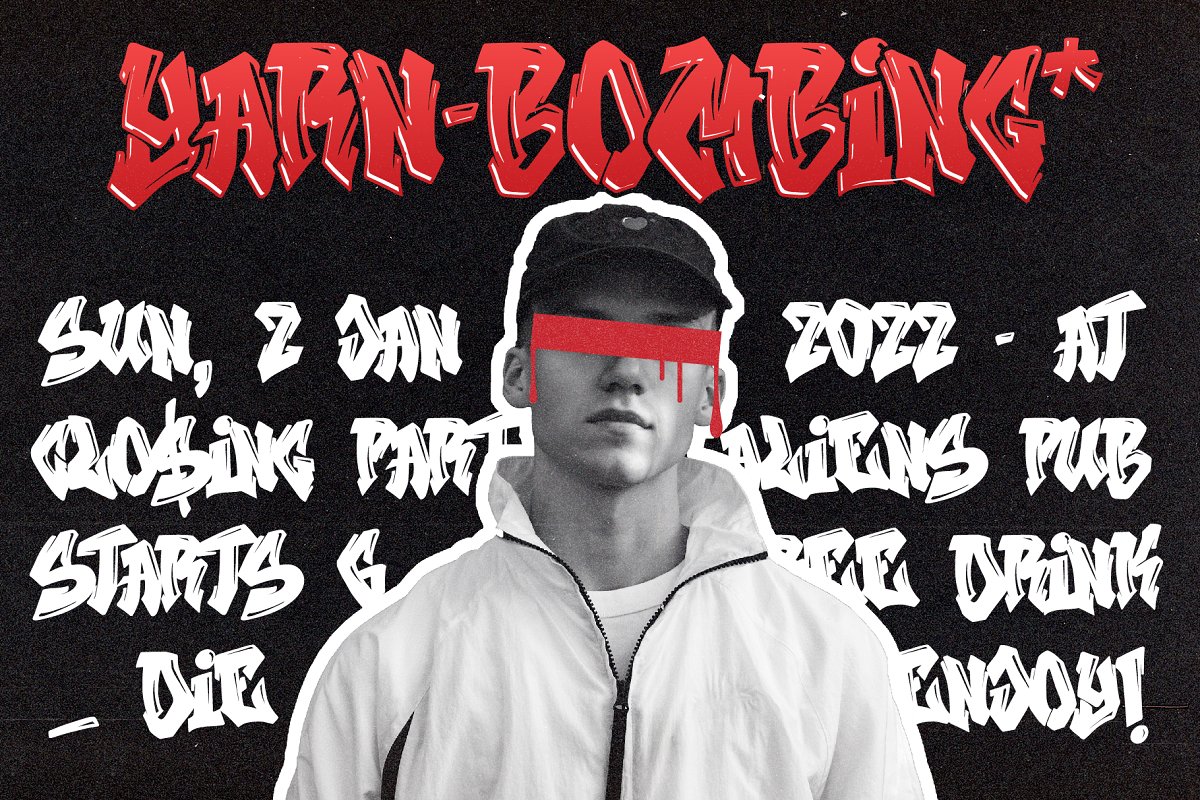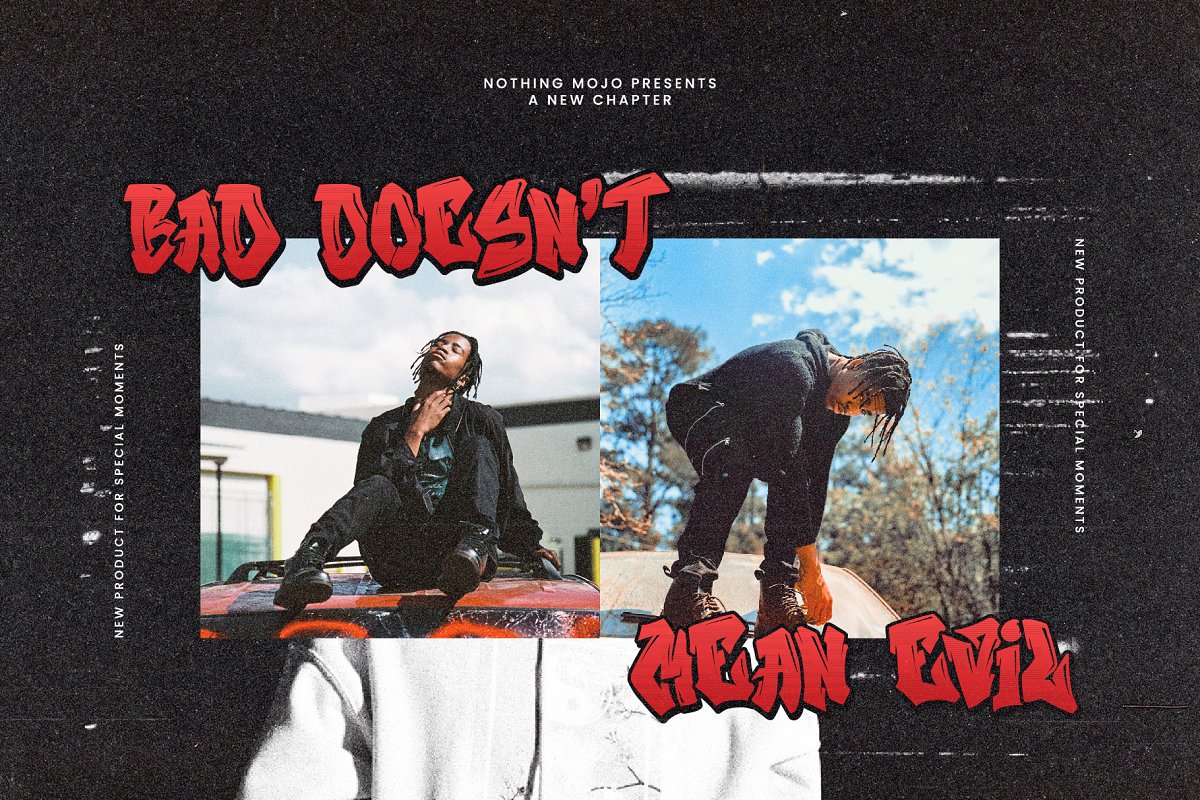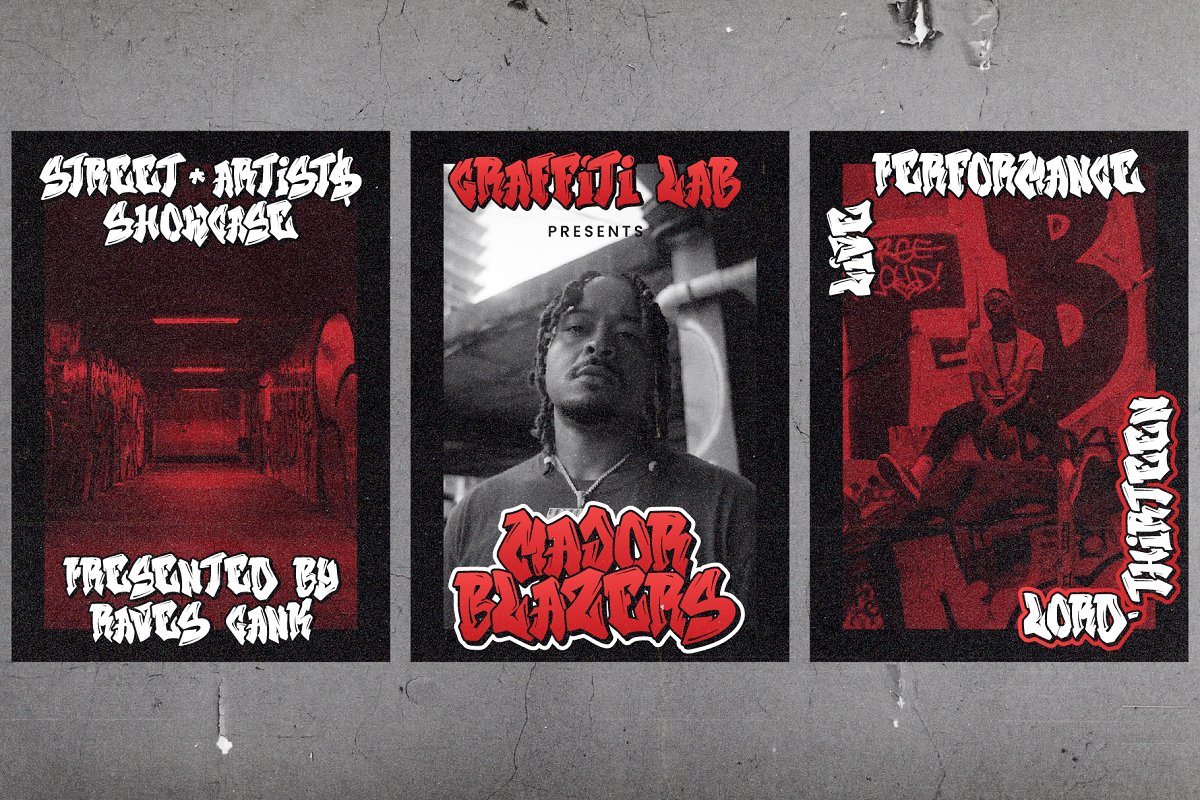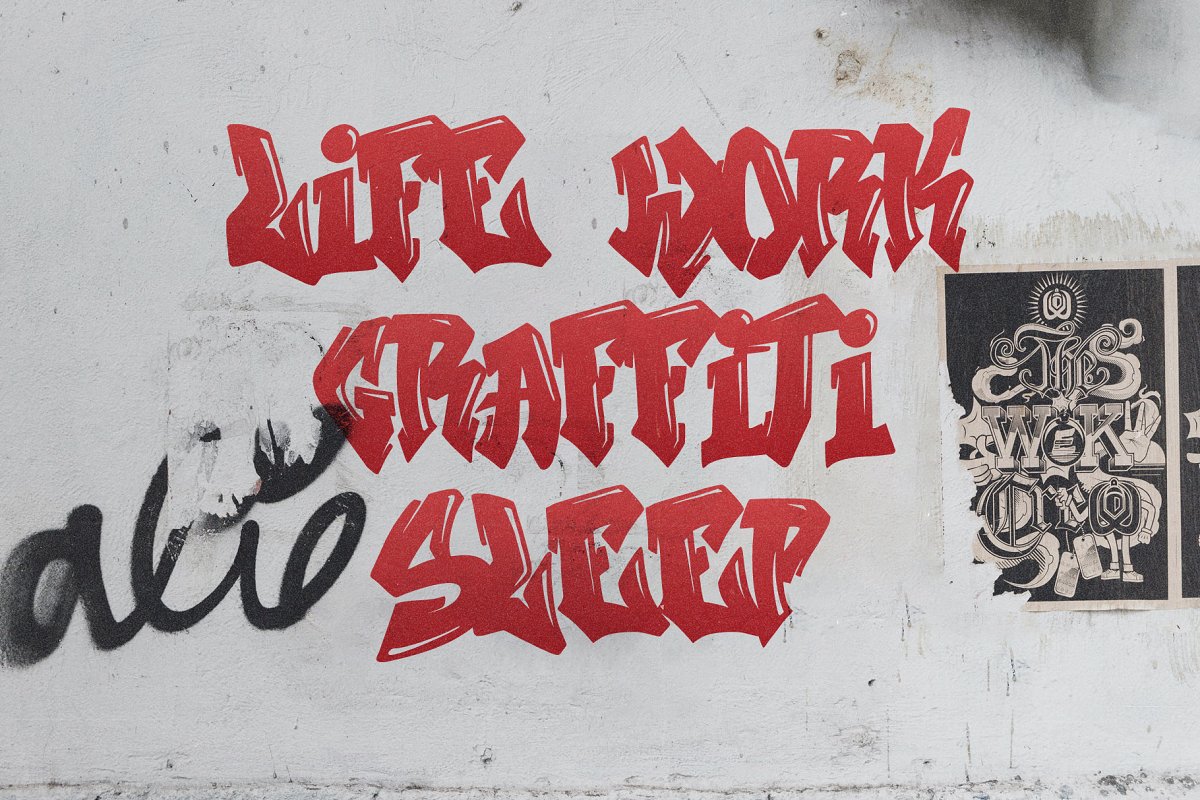
About the Trainidath Font
TRAINIDATHTrainidath is an urban font with graffiti style, YOU WILL GET :Trainidath, otfTrainidath, ttfTrainidath, woff2To enable the OpenType Stylistic alternates, you need a program that supports OpenType features such as Adobe Illustrator CS, Adobe Indesign & CorelDraw X6-X7, Guides to access all alternates glyphs : http://adobe